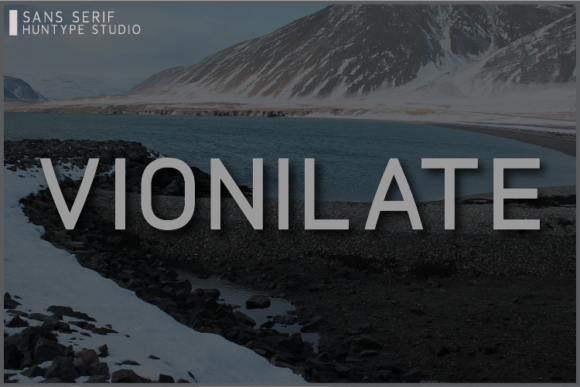
**Vionilate: The Art of Simplicity and Sophistication**
In the realm of fonts, where creativity and expression converge, Vionilate emerges as a true masterpiece. This modern and minimalist sans serif font is a testament to the power of simplicity, offering an aesthetic that is both captivating and timeless. Its clean lines, open counters, and balanced letterforms create a visual harmony that elevates any design project to new heights.
With Vionilate, you hold the key to unlocking a world of possibilities. Whether you seek to craft logos that leave a lasting impression, design magazines that exude sophistication, or build brands that speak volumes, this font is your ultimate companion. Its versatility extends beyond the corporate world, making it an ideal choice for personal projects, photography, and even heartfelt quotes.
**A Font That Speaks to the Heart**
Vionilate is more than just a font; it's an emotion embodied in digital form. Its delicate curves and subtle details evoke a sense of elegance and grace, while its strong and confident strokes convey a sense of authority and power. Whether you're crafting a message of love, inspiration, or empowerment, Vionilate amplifies your words, adding depth and resonance to every character.
**Experience the Vionilate Difference**
Dive into the world of Vionilate and witness the transformative power of a well-chosen font. Let your creativity soar as you explore endless design possibilities, knowing that every letter, every word, and every line carries the essence of sophistication and artistry. Say goodbye to ordinary fonts and embrace the allure of Vionilate, the font that ignites your imagination and leaves an unforgettable mark on your audience.
**Elevate Your Designs with Vionilate Today**